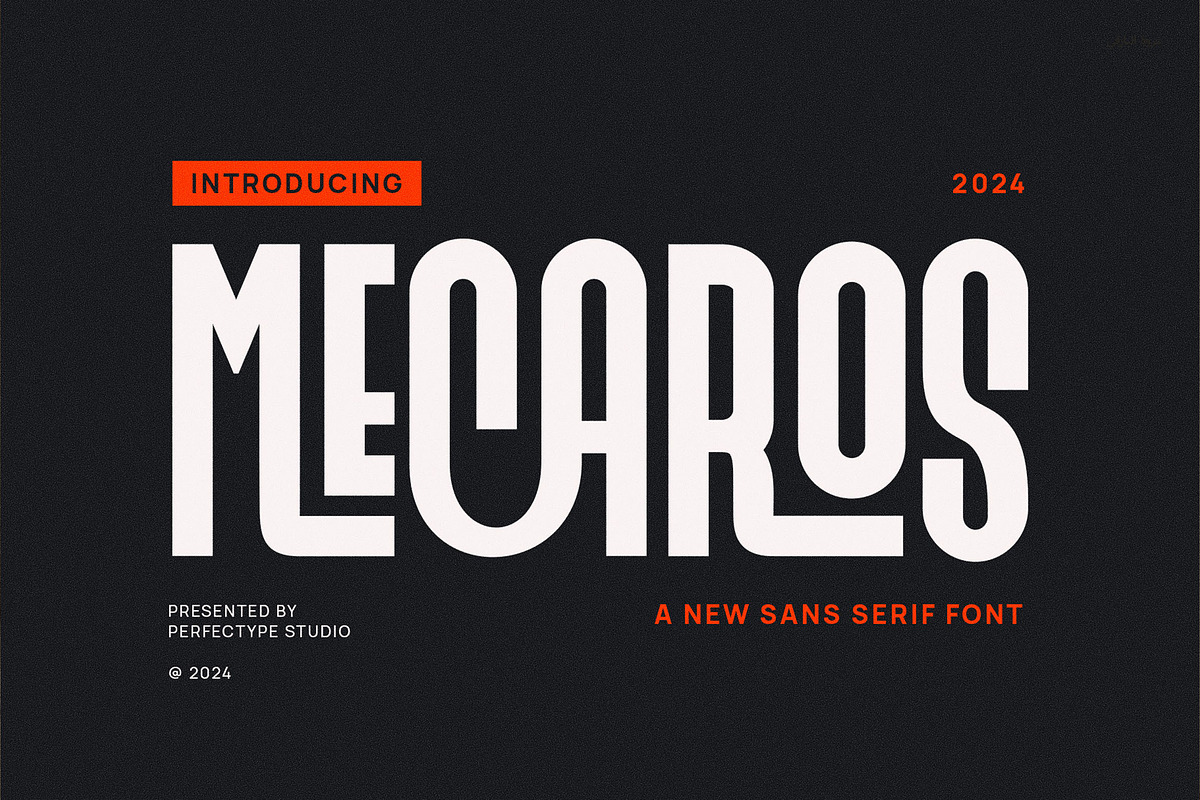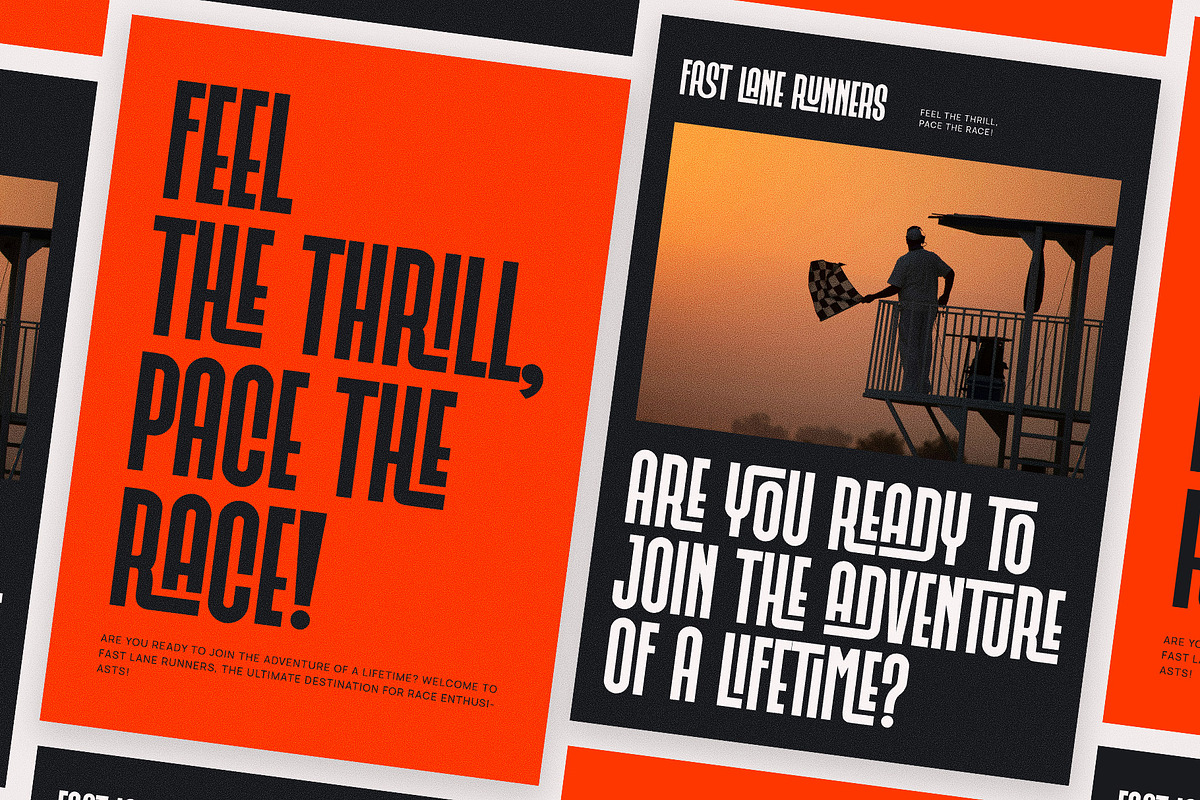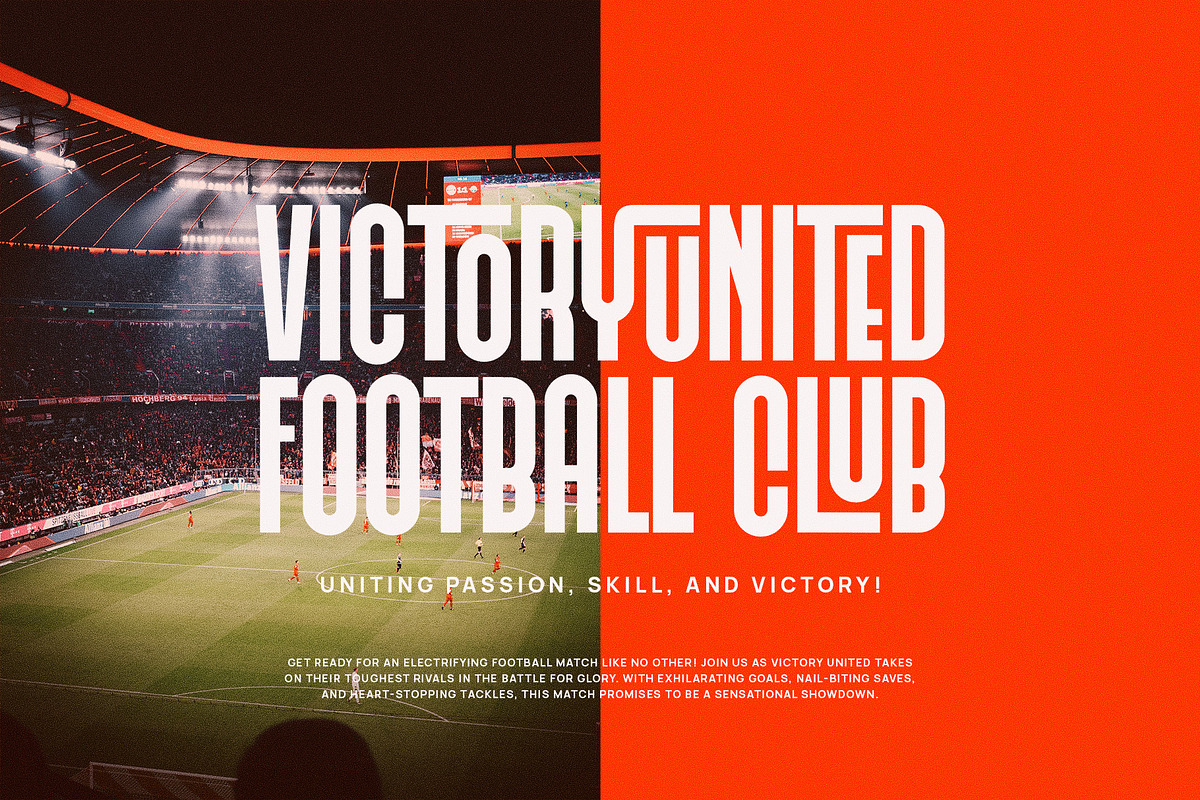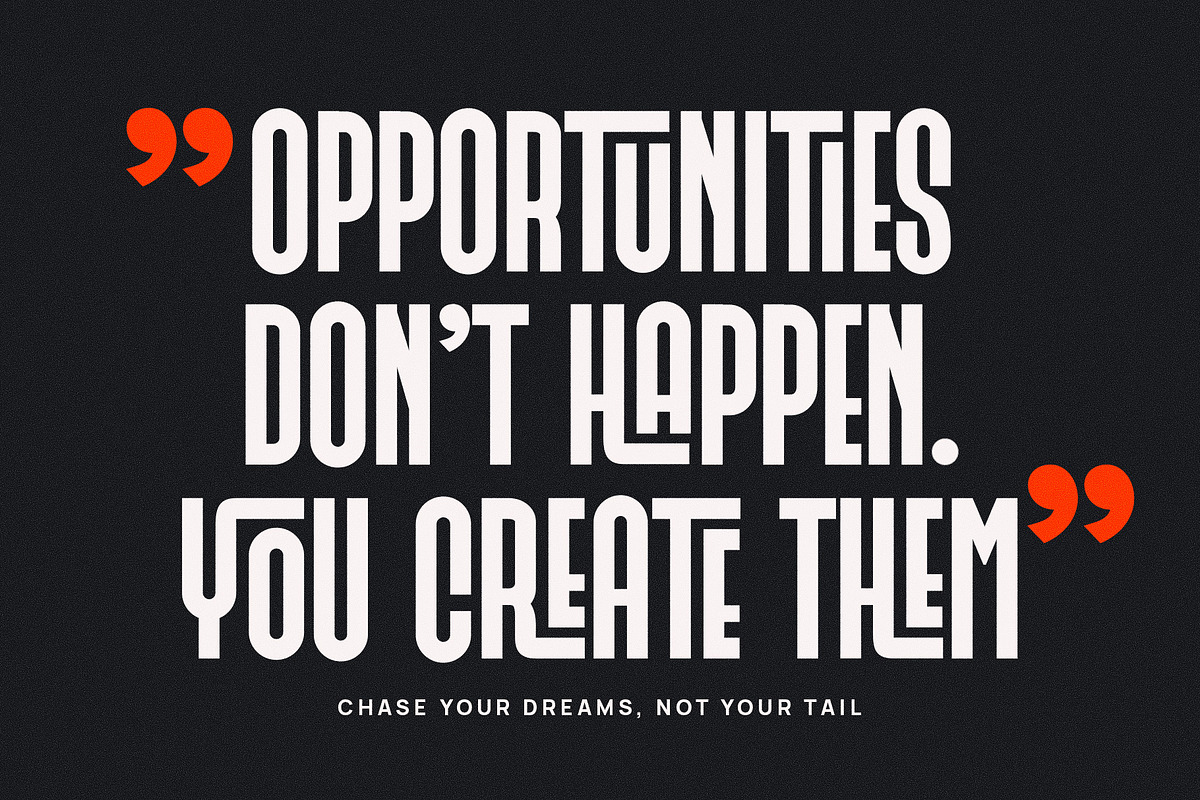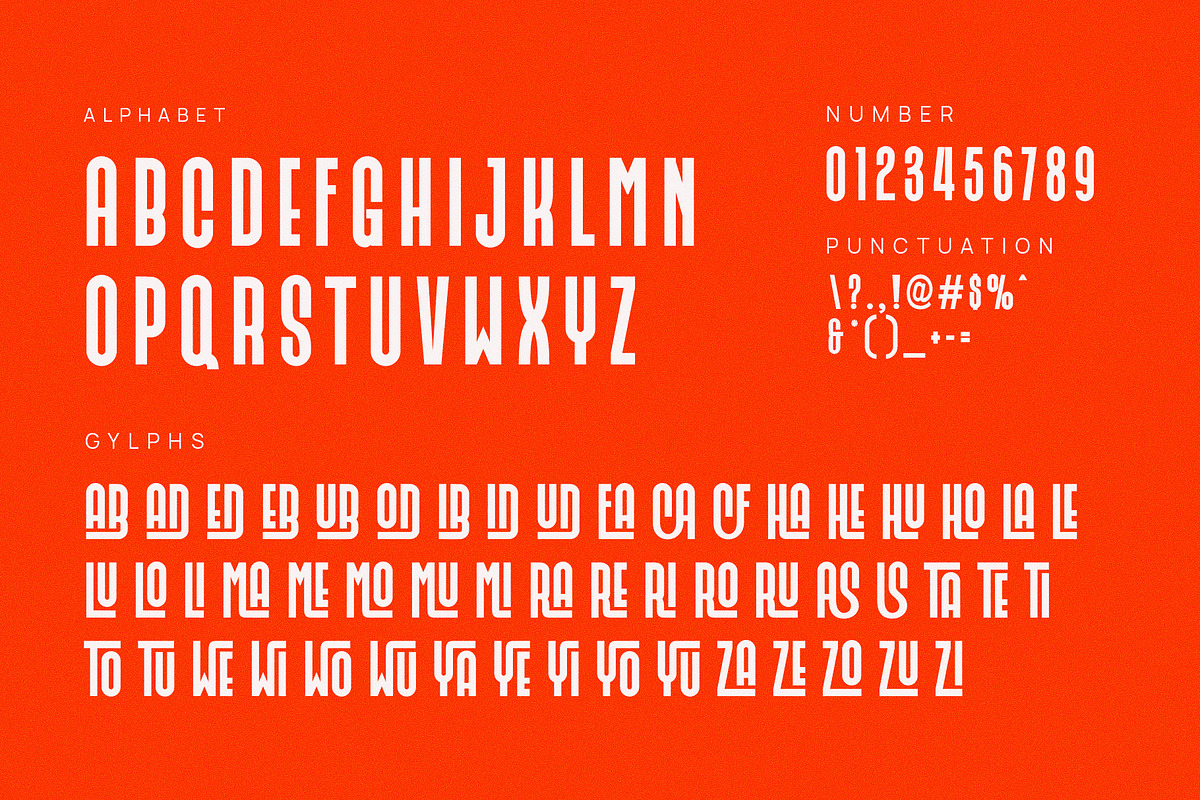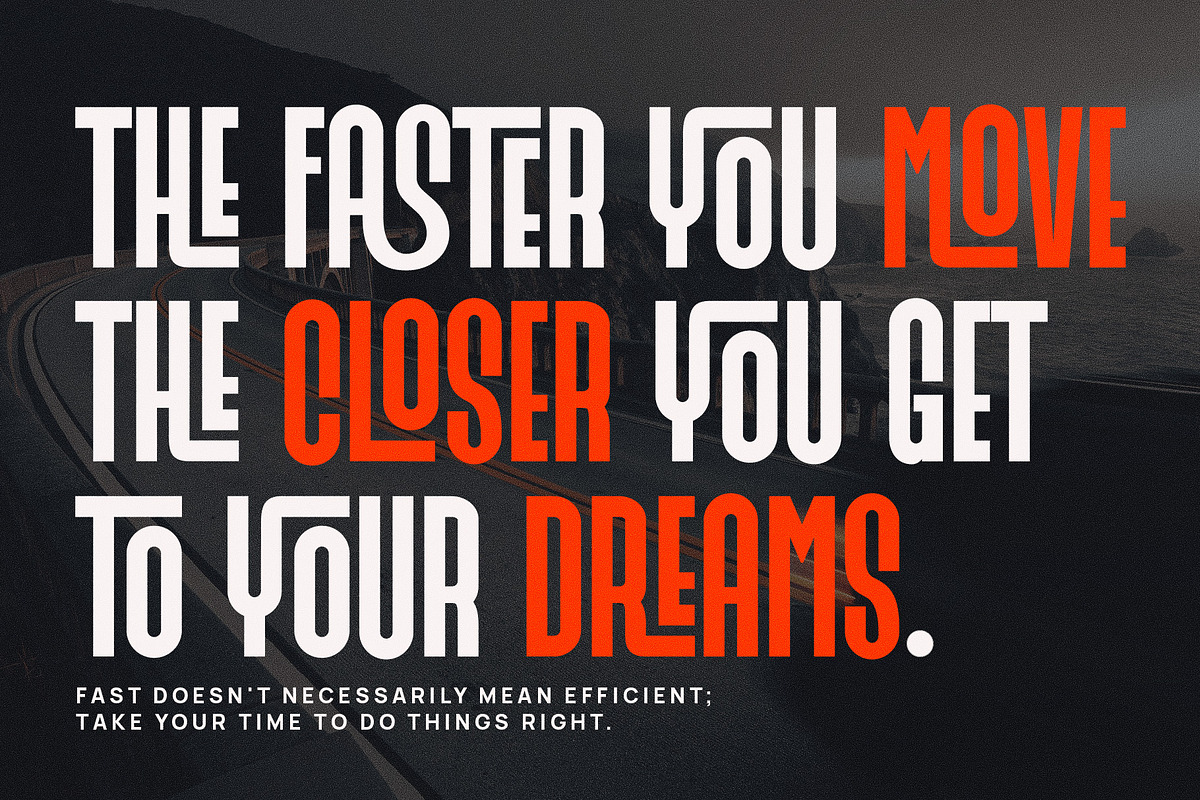
Mecaros Modern Ligature Sans Serif
Mecaros is a modern and minimalist font that has many binding features. This font has many glyphs consisting of various sequential binding features of all the letters which will certainly beautify and make your design look good and great. This font is made with a balanced shape with a high level of legibility, so it looks neat when used to write/create various designs and purposes. This font is suitable for your various designs such as branding projects, logos, social media posts, advertisements, product packaging, product designs, labels, photography, watermarks, invitations, stationery, wedding designs and any project, created with a high level of legitimacy .